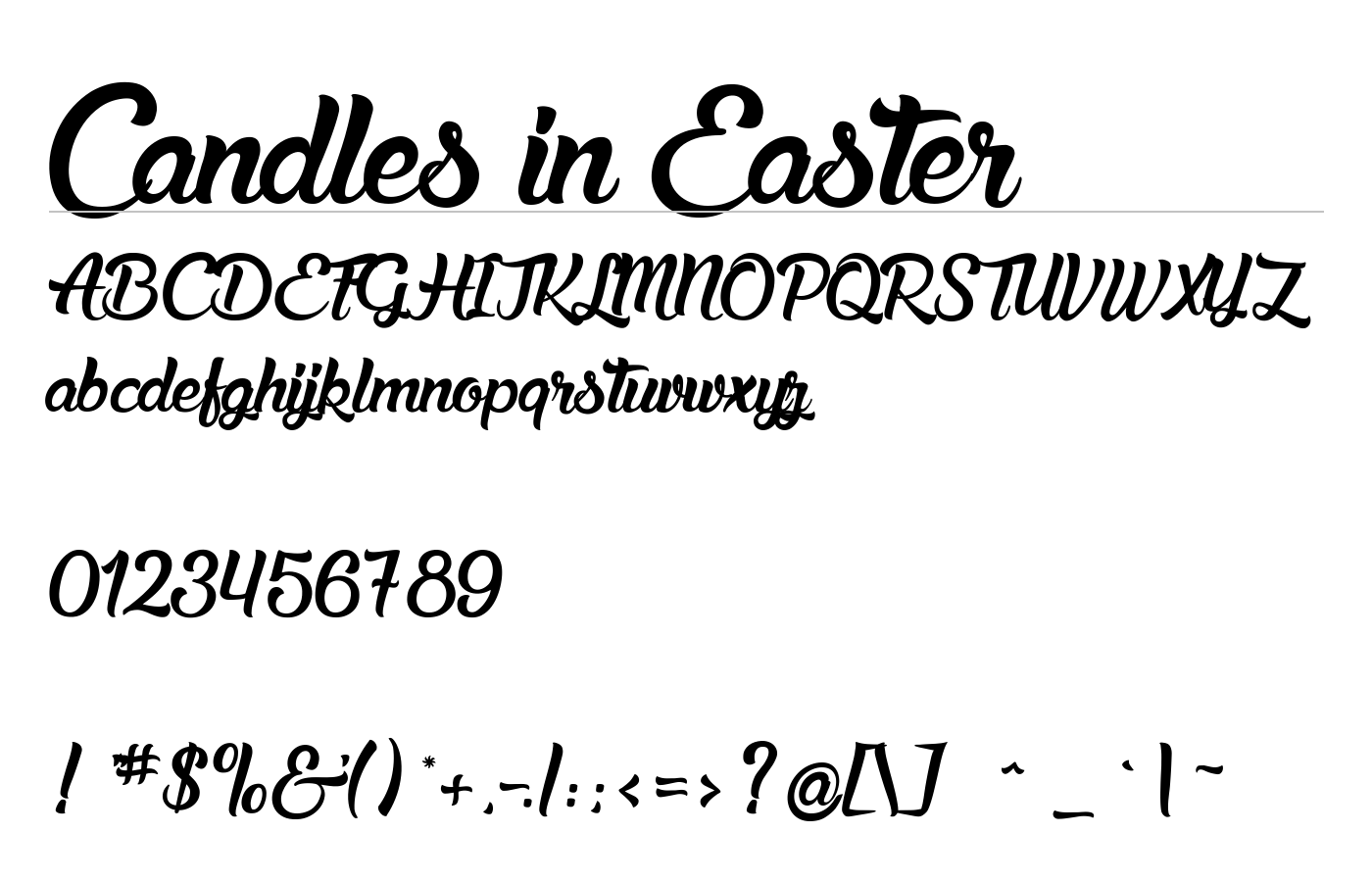
Candles in Easter is a charming script font with smooth, flowing strokes and a medium weight that gives it a friendly, handwritten feel. Its slightly condensed width and elegant curves make it ideal for conveying warmth and sophistication, perfect for invitations, greeting cards, and branding that seeks a personal yet polished touch. This font works beautifully in decorative headlines and logos where a playful, yet graceful style is desired.
Candles in Easter Font
About Candles in Easter Font